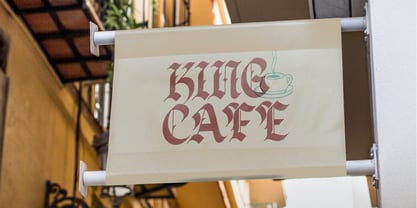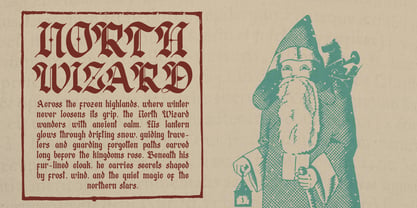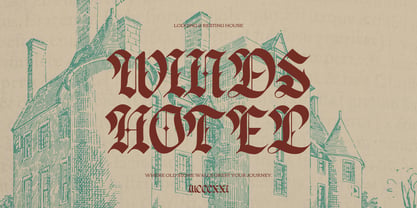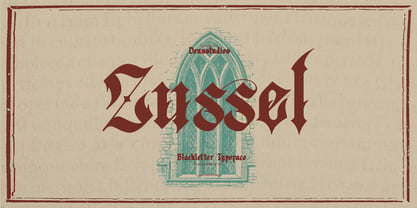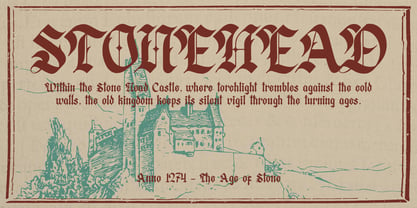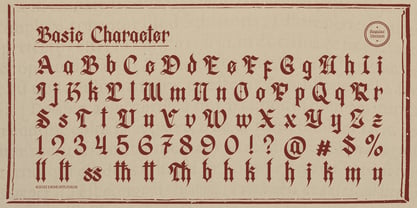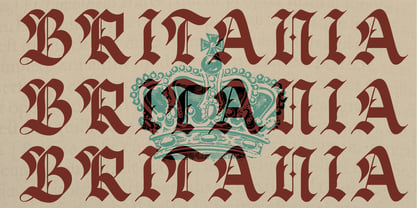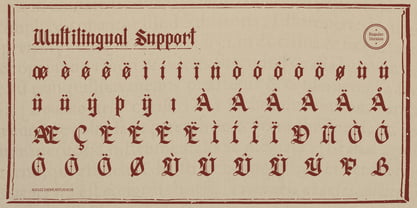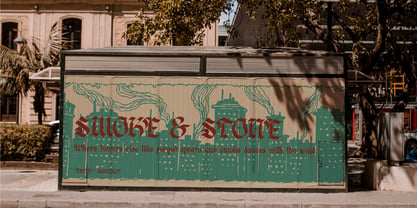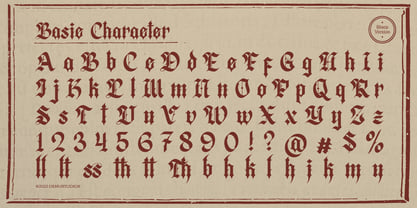
Zussel
Die Schriftfamilie Zussel wurde von Dede Nugraha entworfen und von Denustudio veröffentlicht. Zussel enthält 2 Stile und Familienpaketoptionen. Mehr über diese Familie
Zussel | Blackletter Typeface, from Denustudios, suitable for any projects such as: logos, branding projects, homeware designs, product packaging, mugs, quotes, posters, shopping bags, t-shirts, book covers, name card, invitation cards, greeting cards, label, photography, watermark, special events, and all your other lovely projects that need a Blackletter taste.